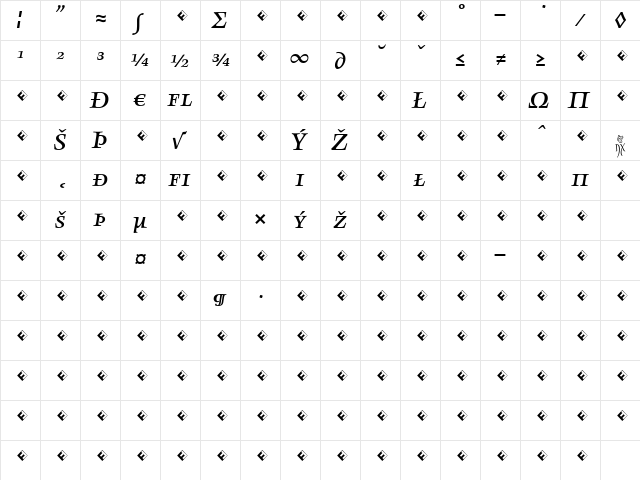
AngkoonTF-MediumItalicSCExp Regular Font Preview
AngkoonTF-MediumItalicSCExp Regular
AngkoonTF-MediumItalicSCExp Regular Font Details
| Foundry | Xavier Dupre, published by FontShop International for the FontFont Library |
| Designer | Xavier Dupre |
Design Context for AngkoonTF-MediumItalicSCExp Typeface
AngkoonTF-MediumItalicSCExp takes a measured approach to typography — its balanced proportions and neutral character make it a reliable workhorse for both digital and print work. Its italic angle brings a sense of urgency and motion to the letterforms.